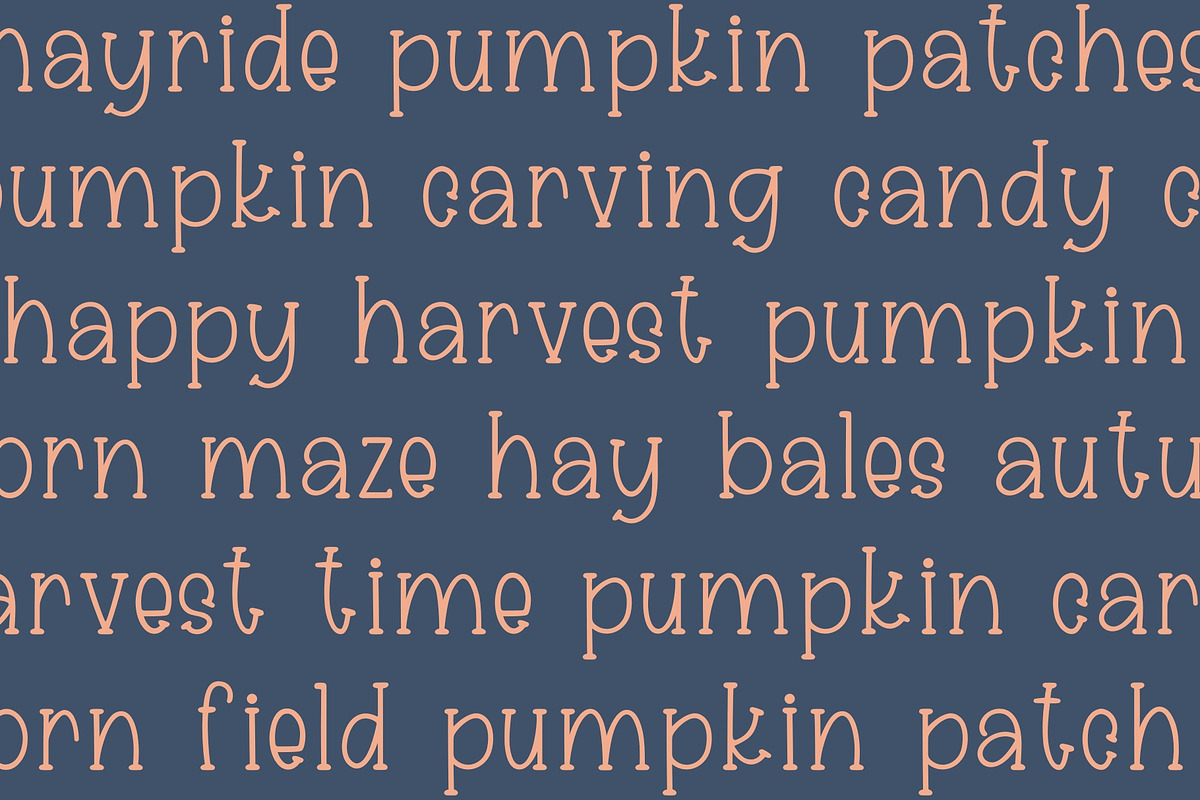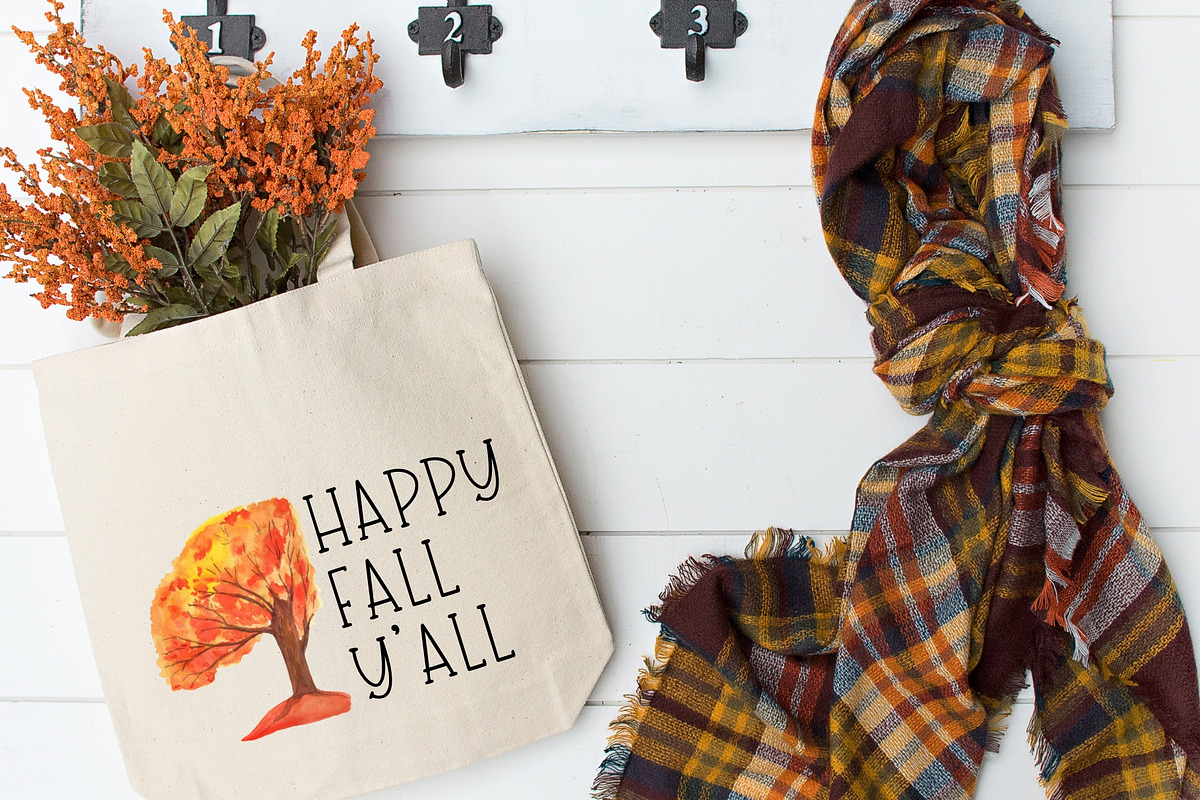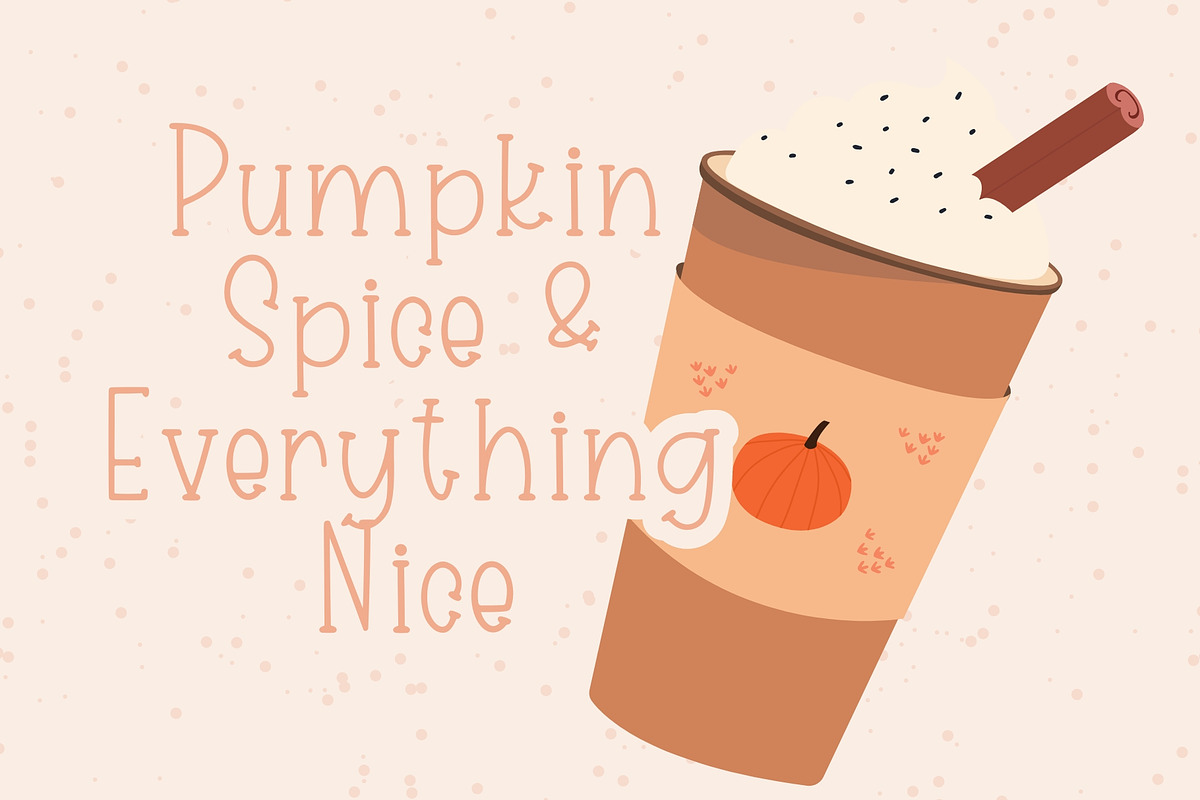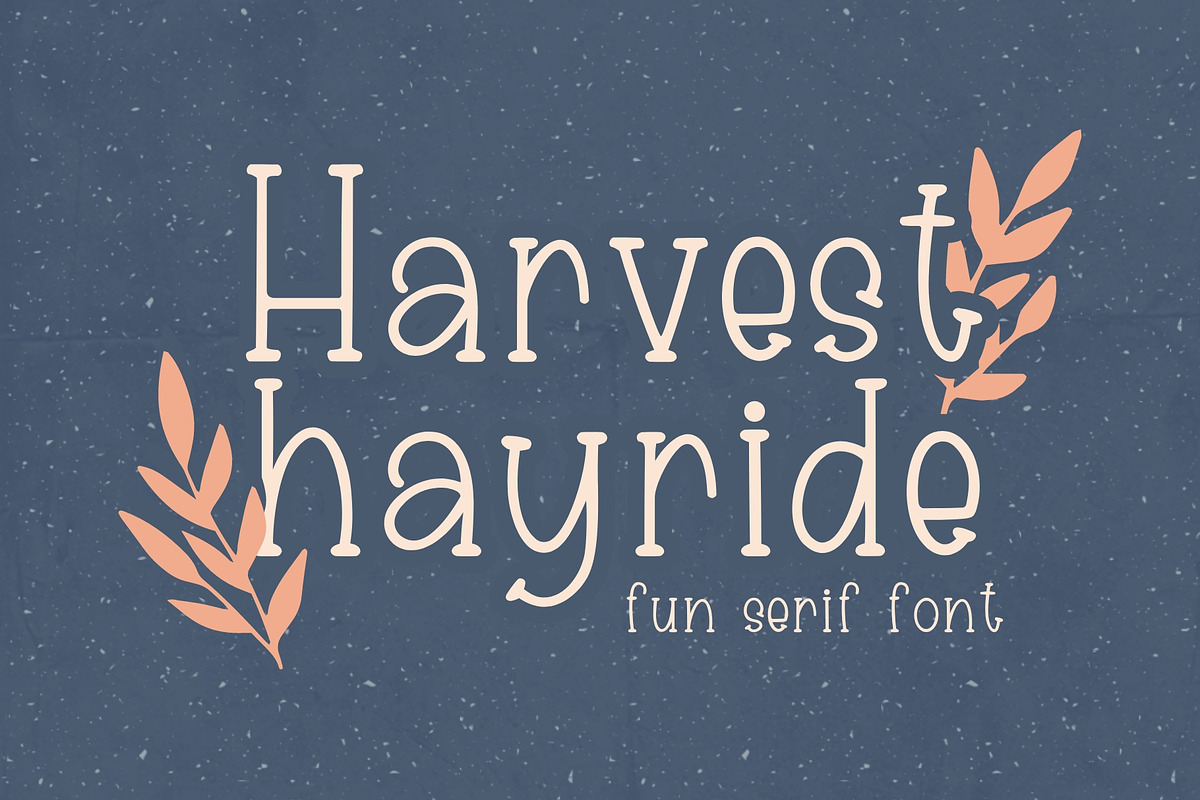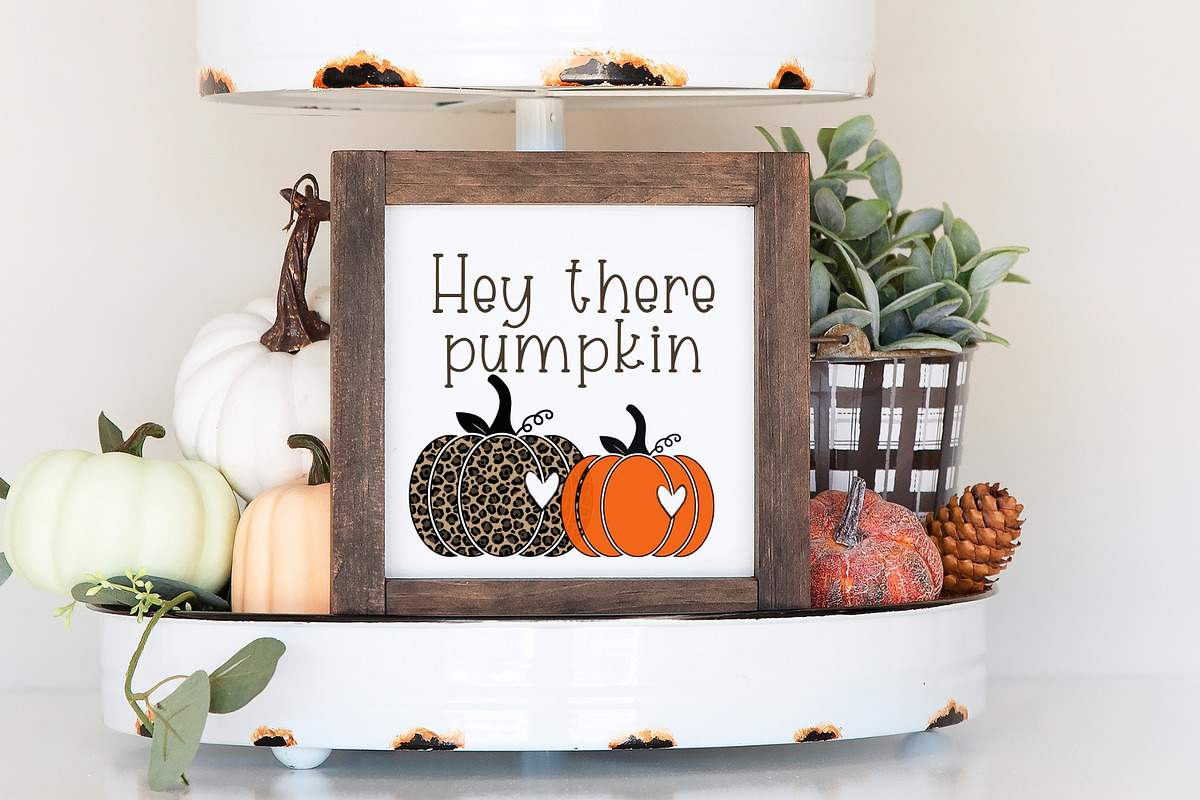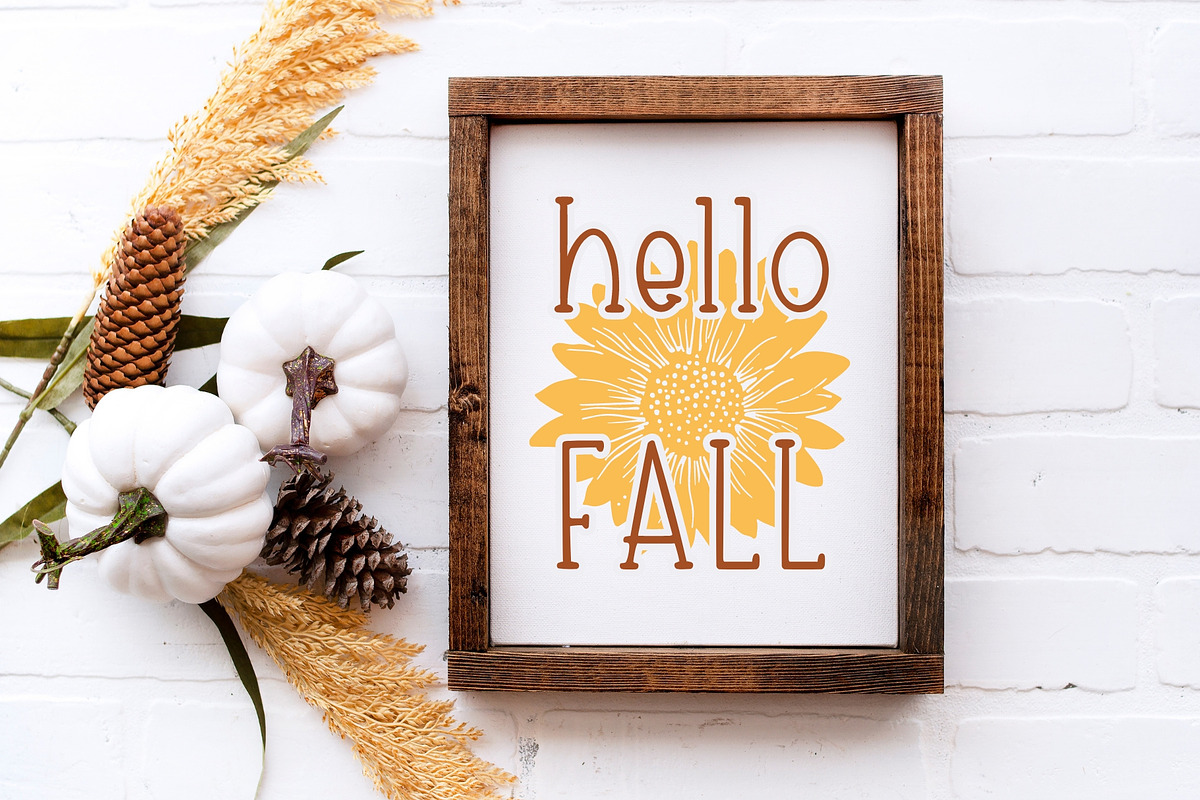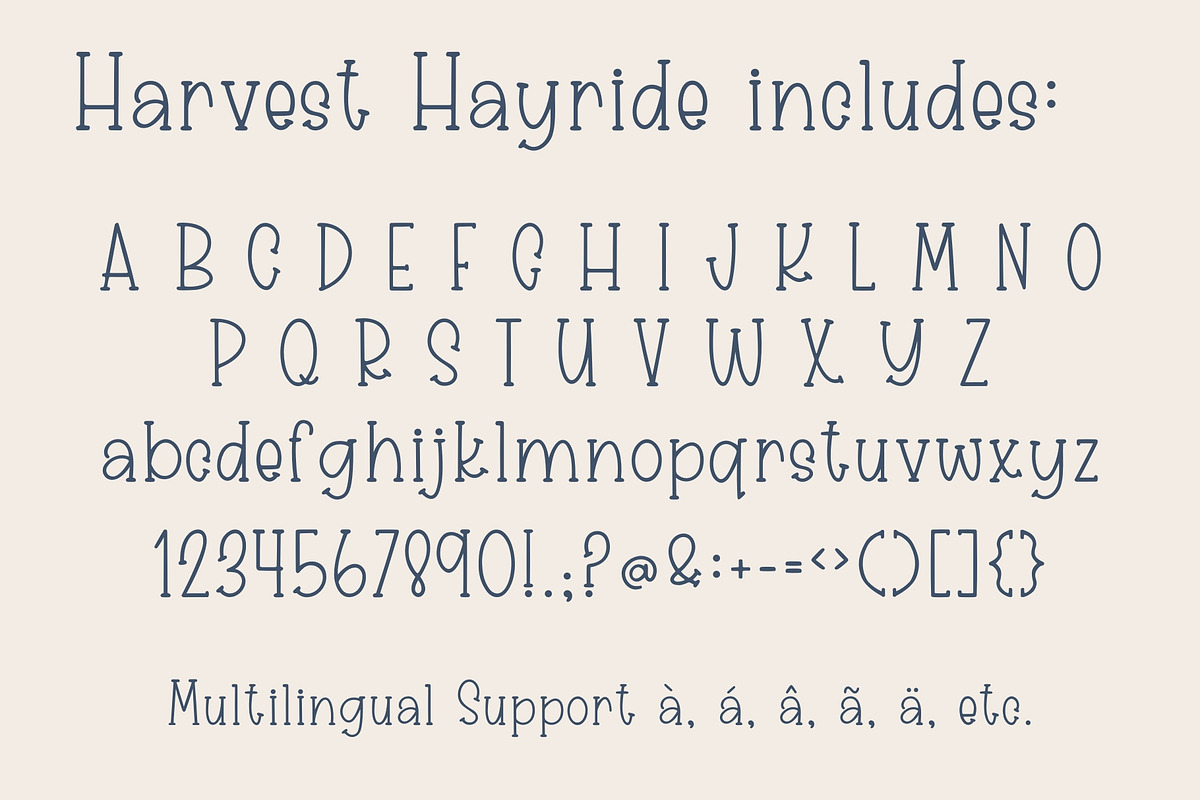
Harvest Hayride, Cute Serif Font
Introducing Harvest Hayride, our charming Farmhouse Handwritten Font, the perfect addition to your creative projects! Our cute serif handwriting font is compatible with SVGs, Goodnotes, Procreate, and many other programs. Whether you're designing rustic farmhouse signs, personalized stationery, or handmade cards, this versatile and enchanting font will surely impress. Elevate your designs with this captivating and sought-after fun handwriting Cricut font, a must-have for any font enthusiast or DIY enthusiast.